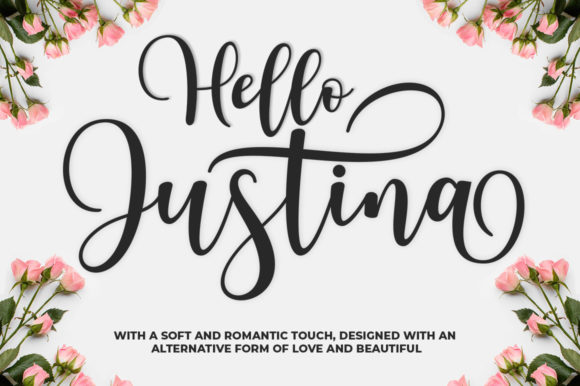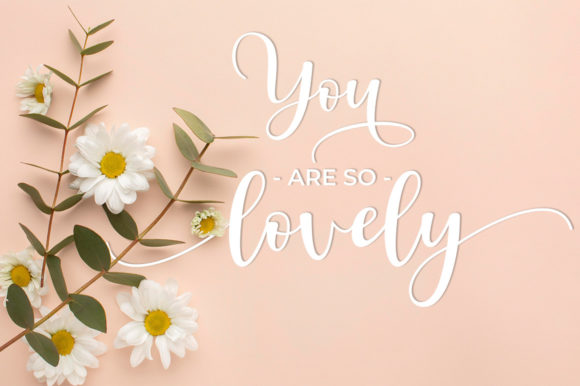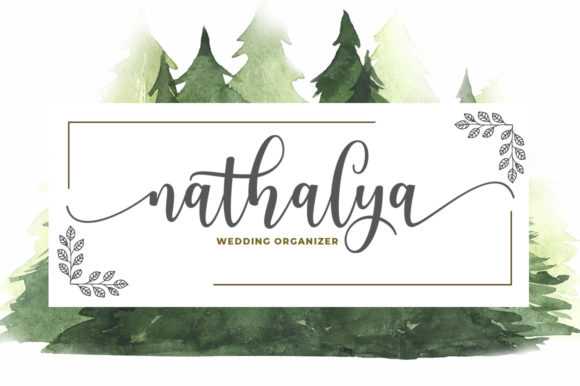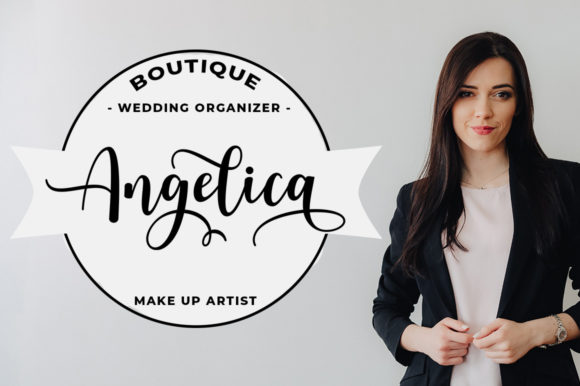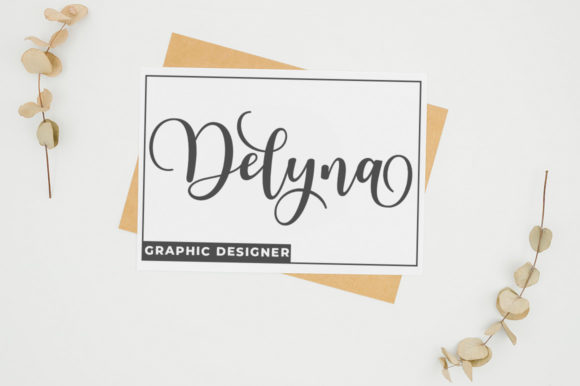
Hello Justina Font
Hello Justina is a lovely and timeless handwritten font. It is the best choice for creating eye catching logos, branding and quotes.